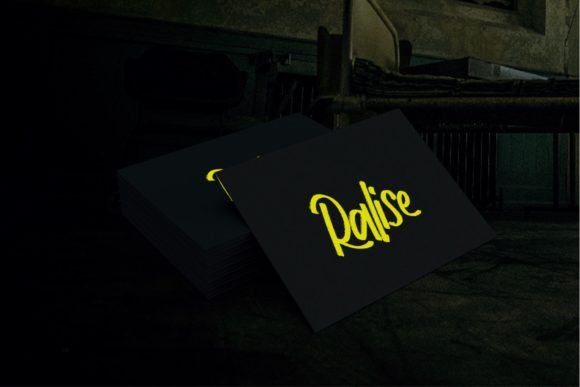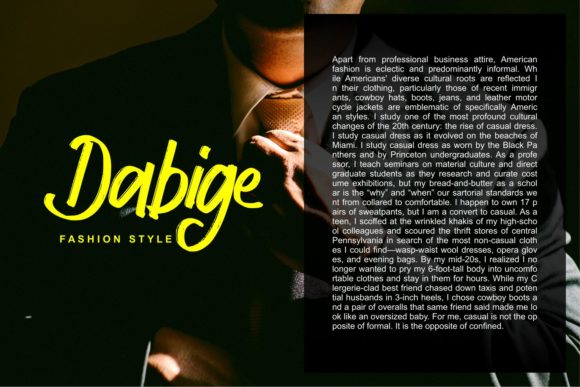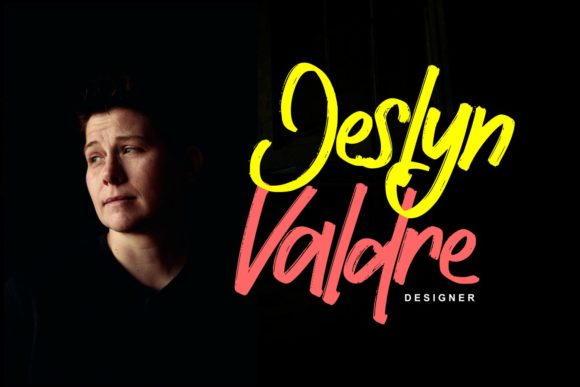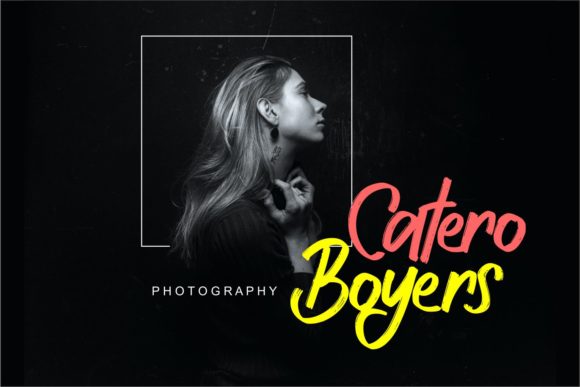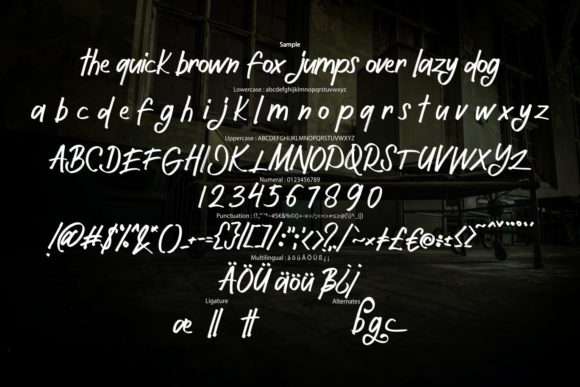
Eather Font
About Eather Font
Eather is a modern handwritten font with a grunge look! It will elevate a wide range of design projects to the highest level, be it branding, headings, wedding designs, invitations, signatures, logos, labels, and much more!